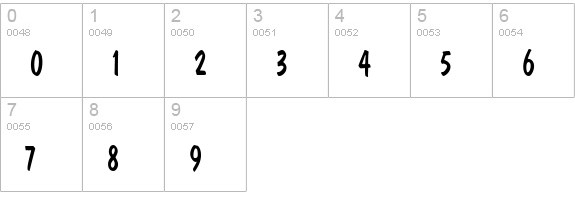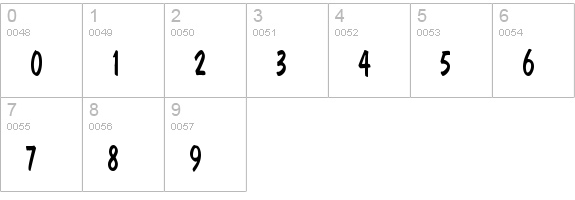
DonCasualCondensed Font Details
DonCasualCondensed font is a modern and stylish typeface that exudes a casual and laid-back vibe. Its condensed design makes it perfect for creating sleek and professional-looking designs. The font features clean lines and smooth curves, making it easy to read and versatile for a variety of projects. Best of all, DonCasualCondensed font is completely free to download at FontsMarket.com. Whether you're working on a branding project, designing a website, or creating eye-catching social media graphics, this font is sure to elevate your work with its contemporary and chic aesthetic. Download DonCasualCondensed font today and add a touch of sophistication to your designs.